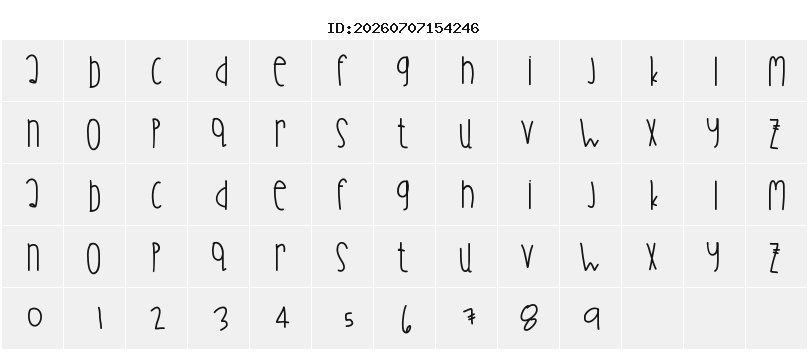
DayDreaming Preview
• Font Name: DayDreaming
• Full Font Name: DayDreaming
About DayDreaming.ttf
DayDreaming.ttf is a modern, elegant sans-serif font designed for ultimate readability and visual harmony. Perfect for branding, headlines, web design, and print materials.